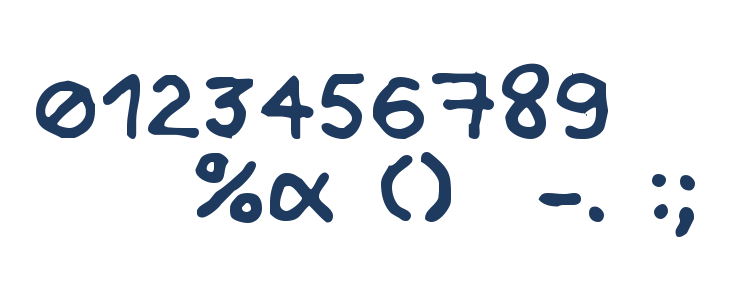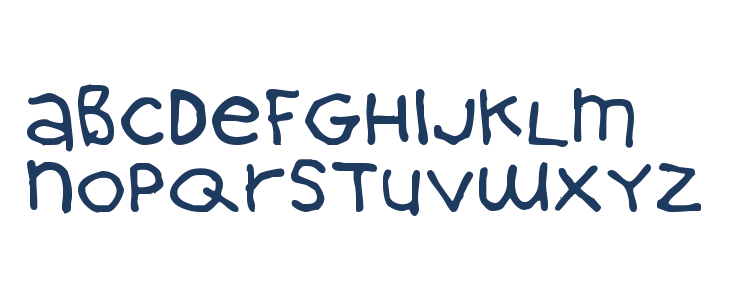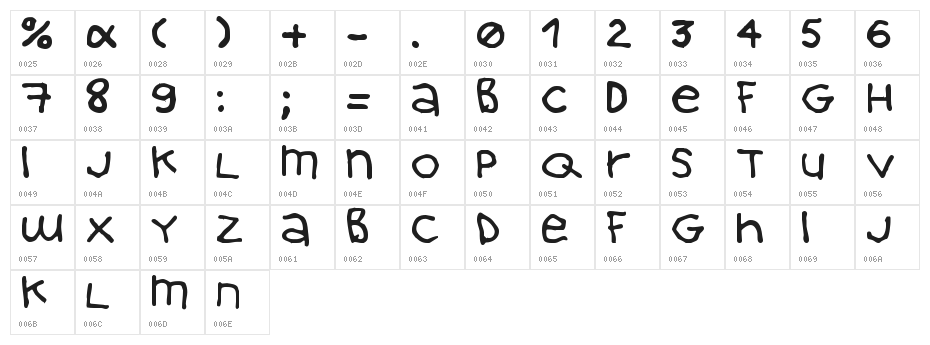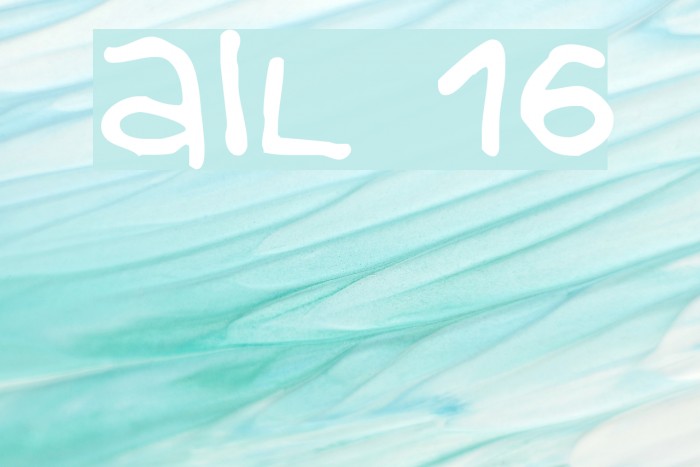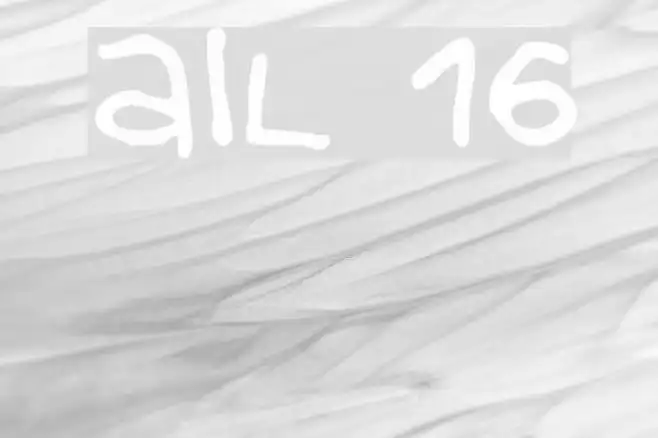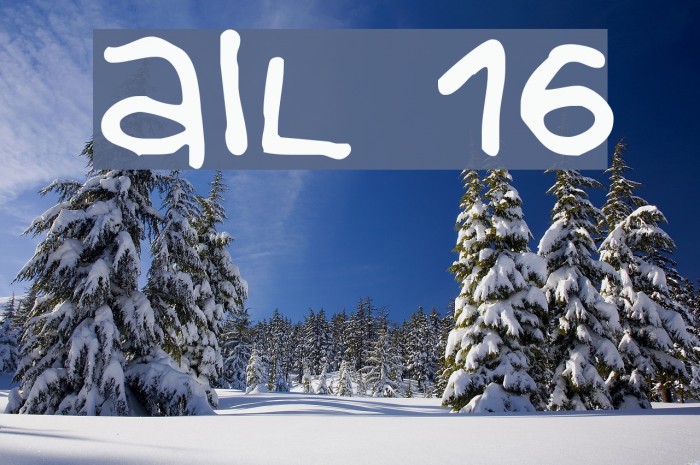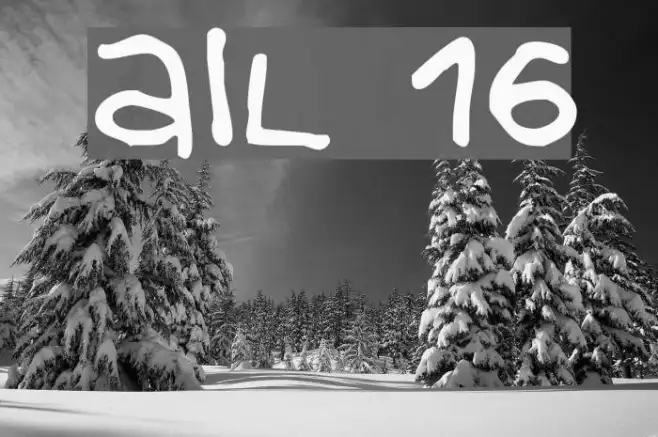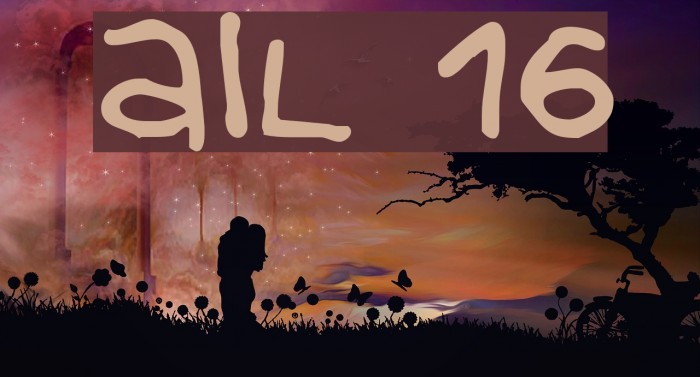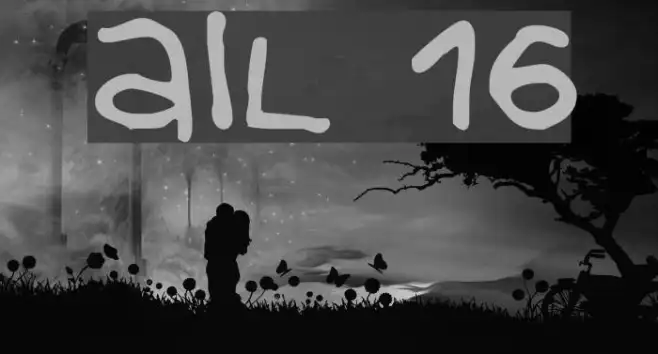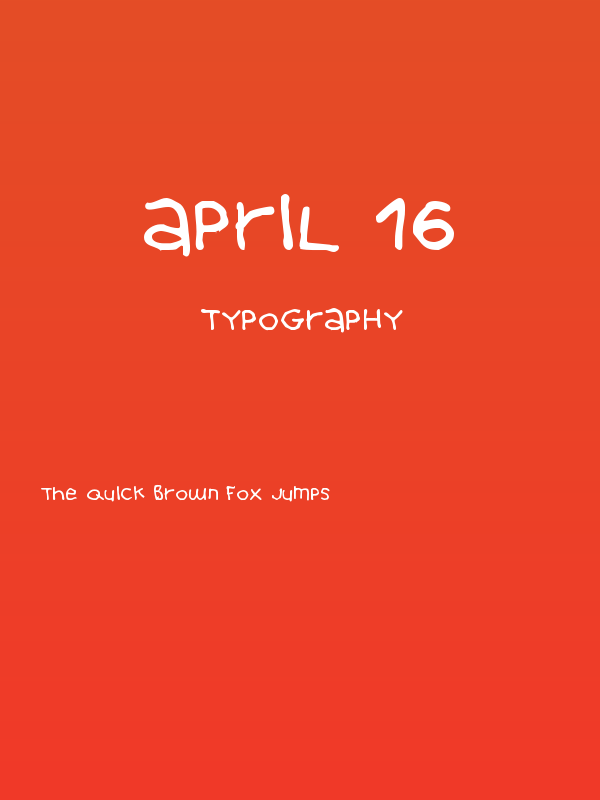
April 16 Font
April 16 Description
This font features a playful and informal handwritten style, characterized by its irregular and organic letterforms. The strokes are uneven, giving it a casual and friendly appearance. The uppercase and lowercase letters maintain a consistent style, with rounded edges and a slightly bouncy baseline. The numerals and special characters follow the same whimsical design, making the font suitable for creative and informal contexts. Its unique charm lies in its imperfect and hand-drawn aesthetic, which adds a personal touch to any project.